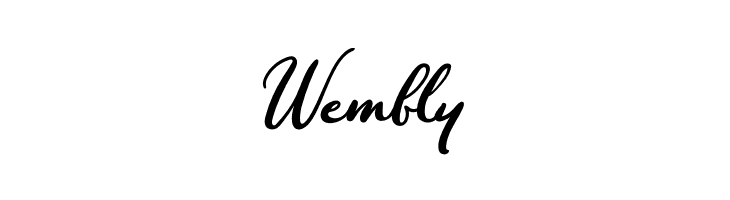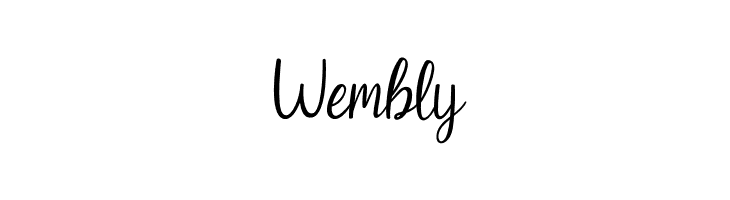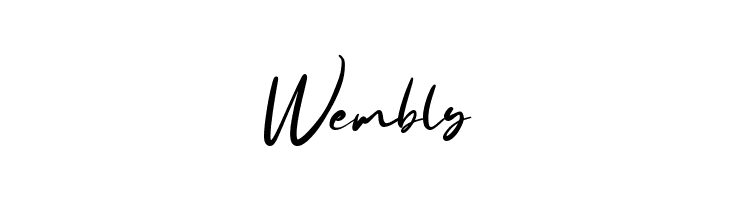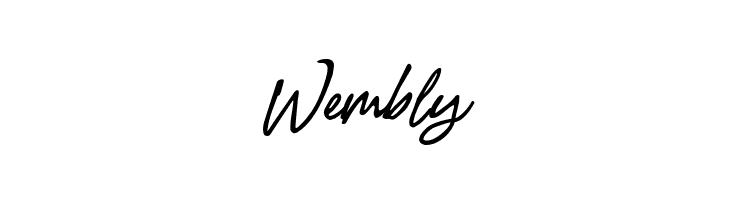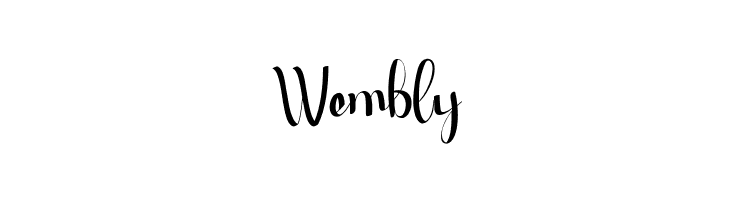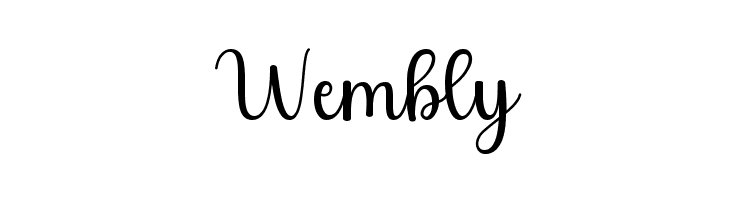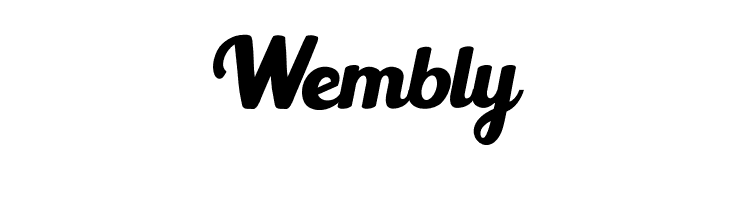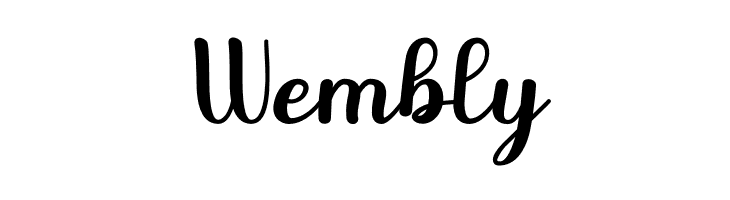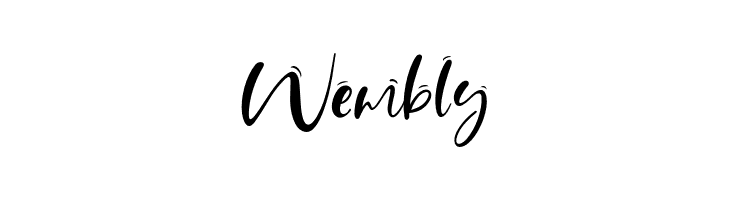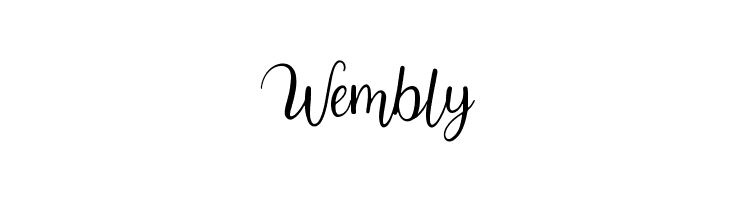
An elegant, flowing script font with a classic calligraphic style.
A playful and casual script font with flowing, connected letterforms.
A lively, handwritten font with a fluid and energetic style.
A dynamic, flowing script font with a handwritten calligraphy style.
A cursive, elegant font with flowing curves and a sophisticated style.
A playful and elegant script font with smooth curves and whimsical appeal.
A bold, brush-style script font with dynamic and flowing characters.
A bold, flowing script font with elegant, cursive letterforms.
A bold, hand-drawn font with a playful and casual style.
A playful and whimsical script font with a handwritten style.
A playful, cursive script font with bold, flowing letters and whimsical flourishes.
A bold, playful font with rounded, hand-drawn characters.
A playful, elegant script font with fluid, connected letters.
A dynamic handwritten font with fluid strokes and a brush-like texture.
A playful, handwritten cursive font with thin, elongated strokes.
A playful, casual handwritten font with smooth, flowing curves.
A fluid and elegant script font with a handwritten appeal.
A playful and elegant script font with a handwritten aesthetic.
A playful and elegant script font with a handwritten touch.
A bold, playful font with thick, rounded strokes and a friendly appearance.
A playful, rounded font with unique circular cutouts for a fun and casual look.
A bold, italic font with a halftone texture and dynamic style.
A playful, bold font with rounded edges and a whimsical style.
A bold, playful font with whimsical curves and thick strokes.
A playful, cursive script font with elegant loops and decorative flourishes.
Playful handwritten decorative font.
Playful, decorative script font with a handwritten style.
A bold, blackletter-inspired decorative font with sharp, dramatic strokes.
Casual, handwritten brush script with smooth, flowing strokes.